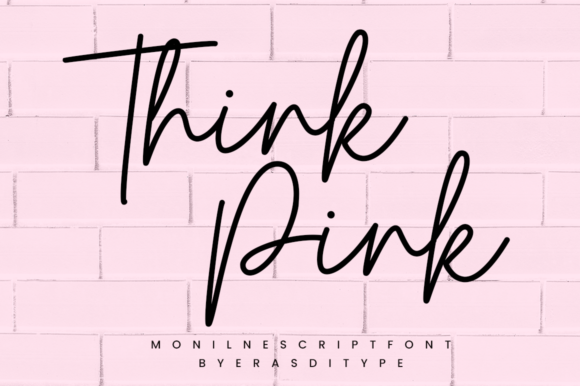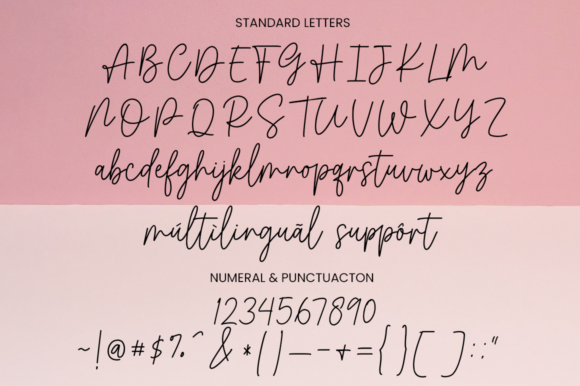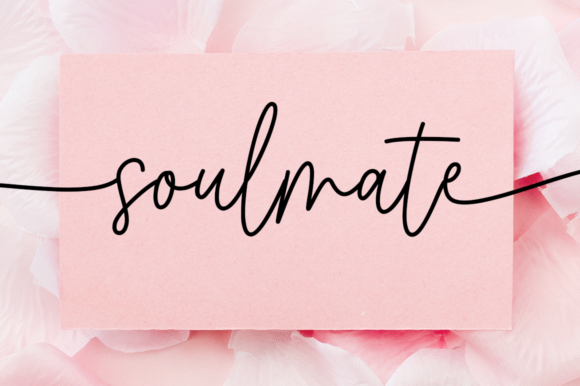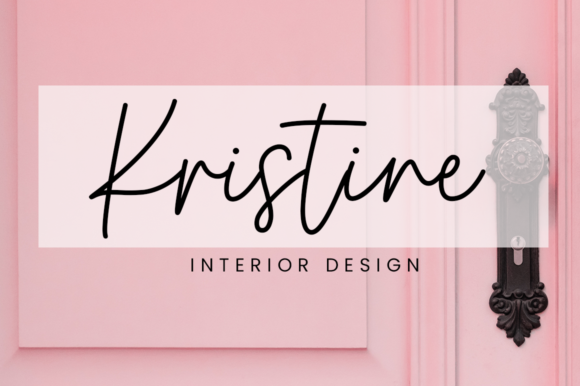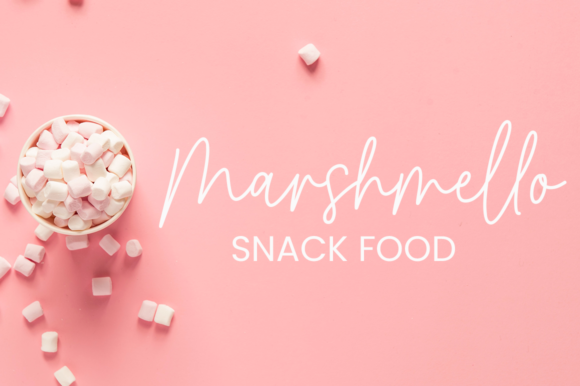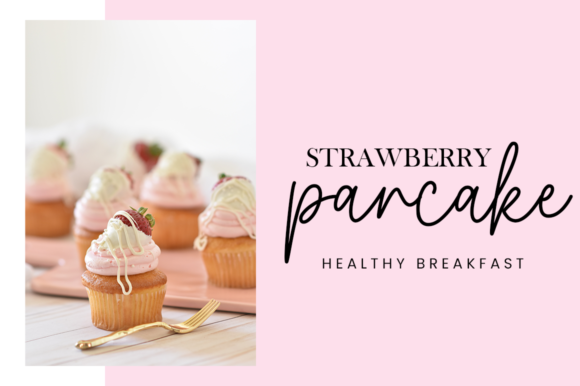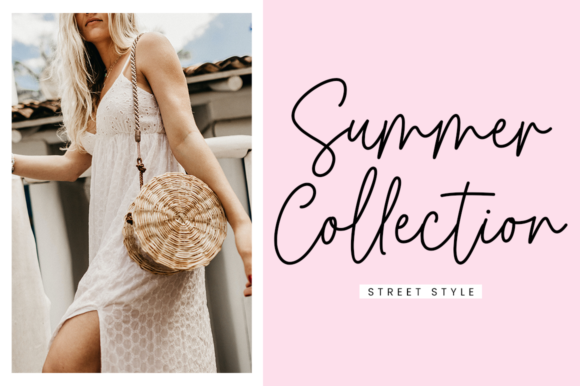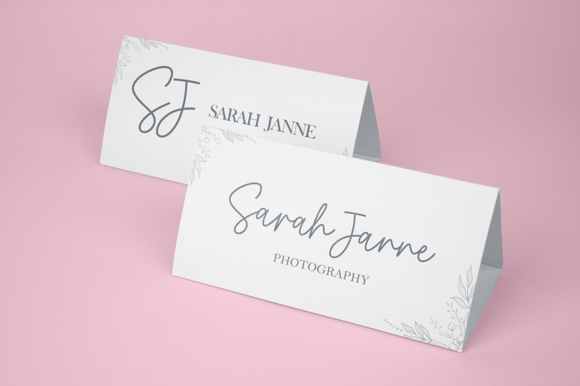
Think Pink Font
Think Pink is a delightful and delicate script font designed to emanate elegance and class. It offers a beautiful and refreshing aesthetic, making it an excellent choice for those who seek a sophisticated and stylish look for their designs.
The script’s intricate details and graceful curves contribute to an overall sense of refinement, allowing Think Pink to stand out in various design contexts. Whether applied to branding, invitations, posters, or other creative projects, this font adds a touch of sophistication and charm.
Moreover, Think Pink is PUA encoded, ensuring convenient access to all its glyphs and swashes. This feature enhances the font’s usability, making it easy for designers to incorporate the unique characters and decorative elements seamlessly into their work.
In essence, Think Pink is more than just a font; it’s a design asset crafted for those who appreciate elegance and a refreshing aesthetic. With its delicate script and PUA encoding, Think Pink becomes a versatile tool for designers looking to infuse sophistication and class into their creative projects.